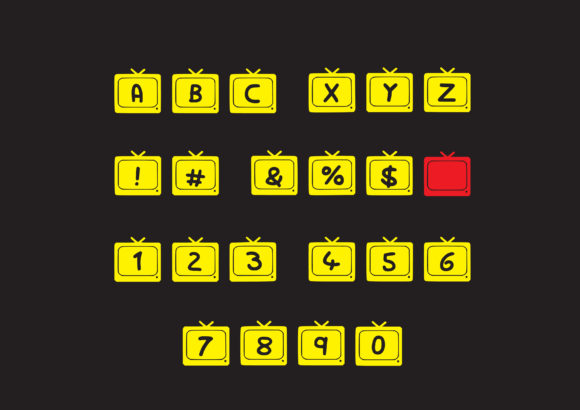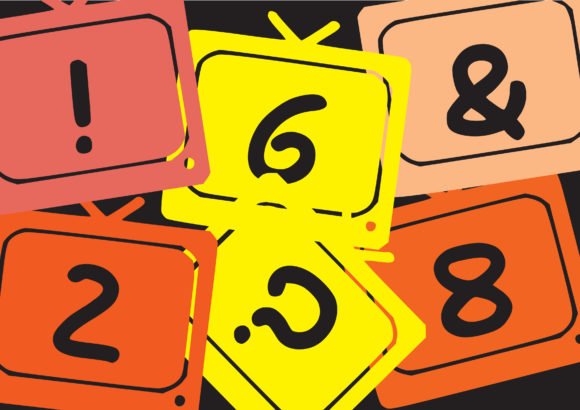
Introduction to Play TV Font
Play TV is a playful decorative font with a retro feel.
Use this font for any crafting project that requires a personalized look .
Key Features of Play TV Font
Why Choose Play TV Font?